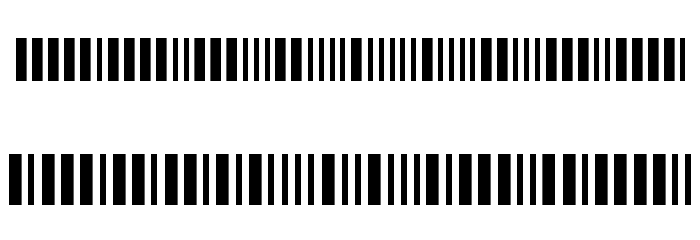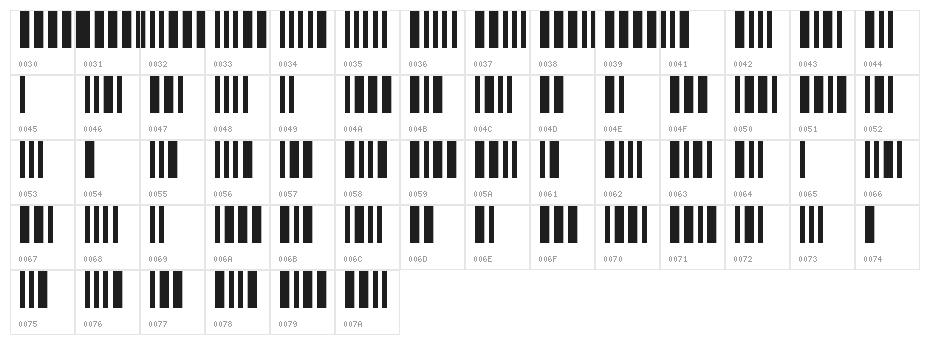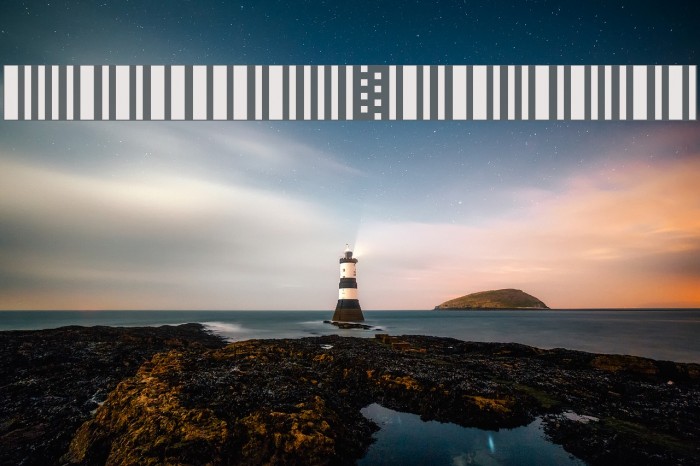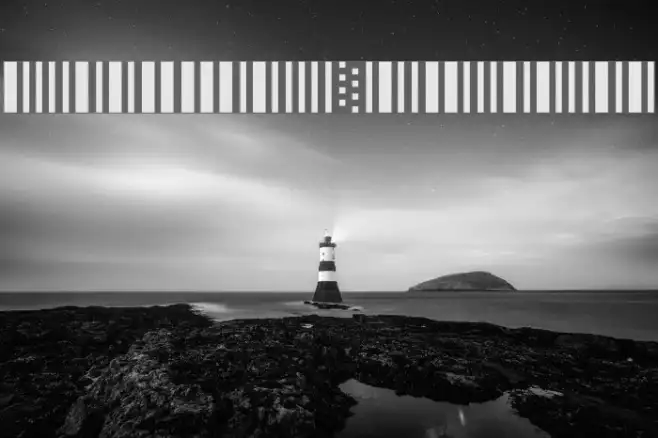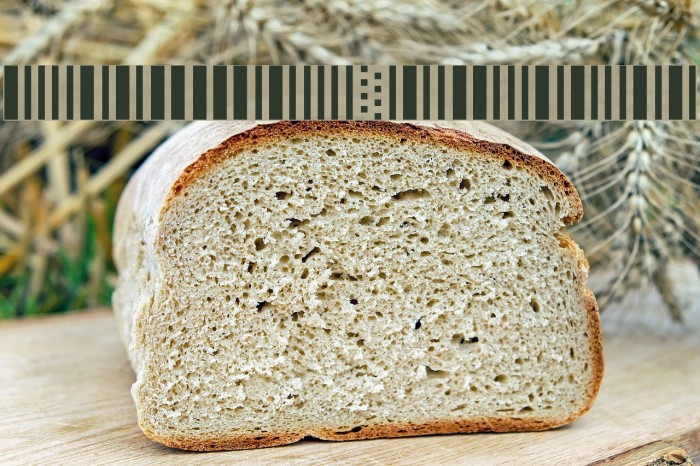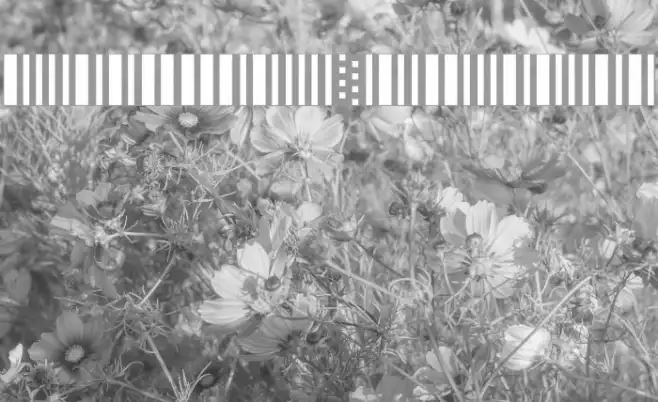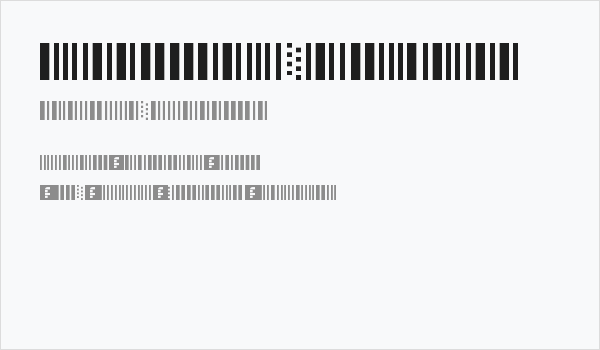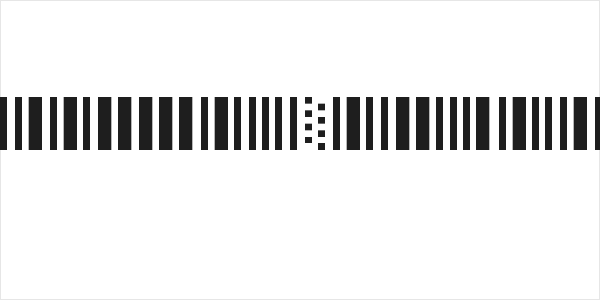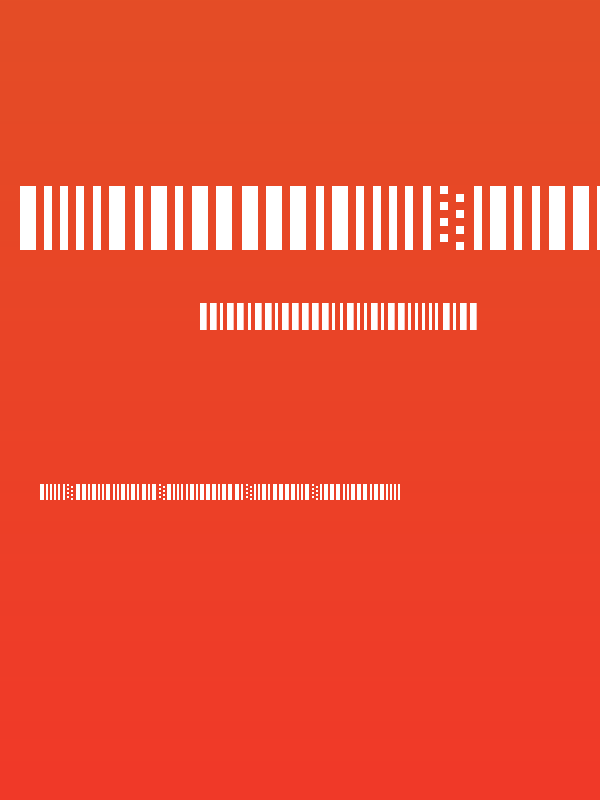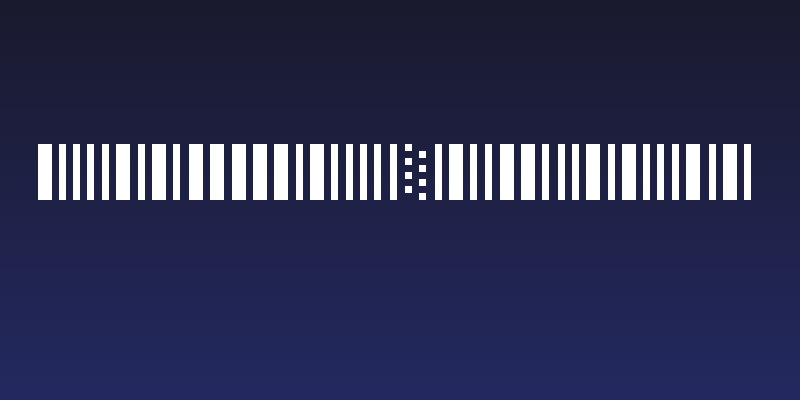
Barmorse Regular Font
Barmorse Regular Description
This design is a creative representation of Morse code, utilizing a series of vertical bars to symbolize letters, numbers, and special characters. Each character is uniquely defined by a combination of thick and thin lines, mimicking the dots and dashes of Morse code. The uniformity and rhythm of the lines create a visually striking pattern that is both modern and abstract. This design is not a traditional font but rather an artistic interpretation of communication through coded symbols.
| Use Case | Artistic displays, educational materials. |
| Proposed Projects | Ideal for art installations, educational tools about Morse code, or unique graphic design projects. |